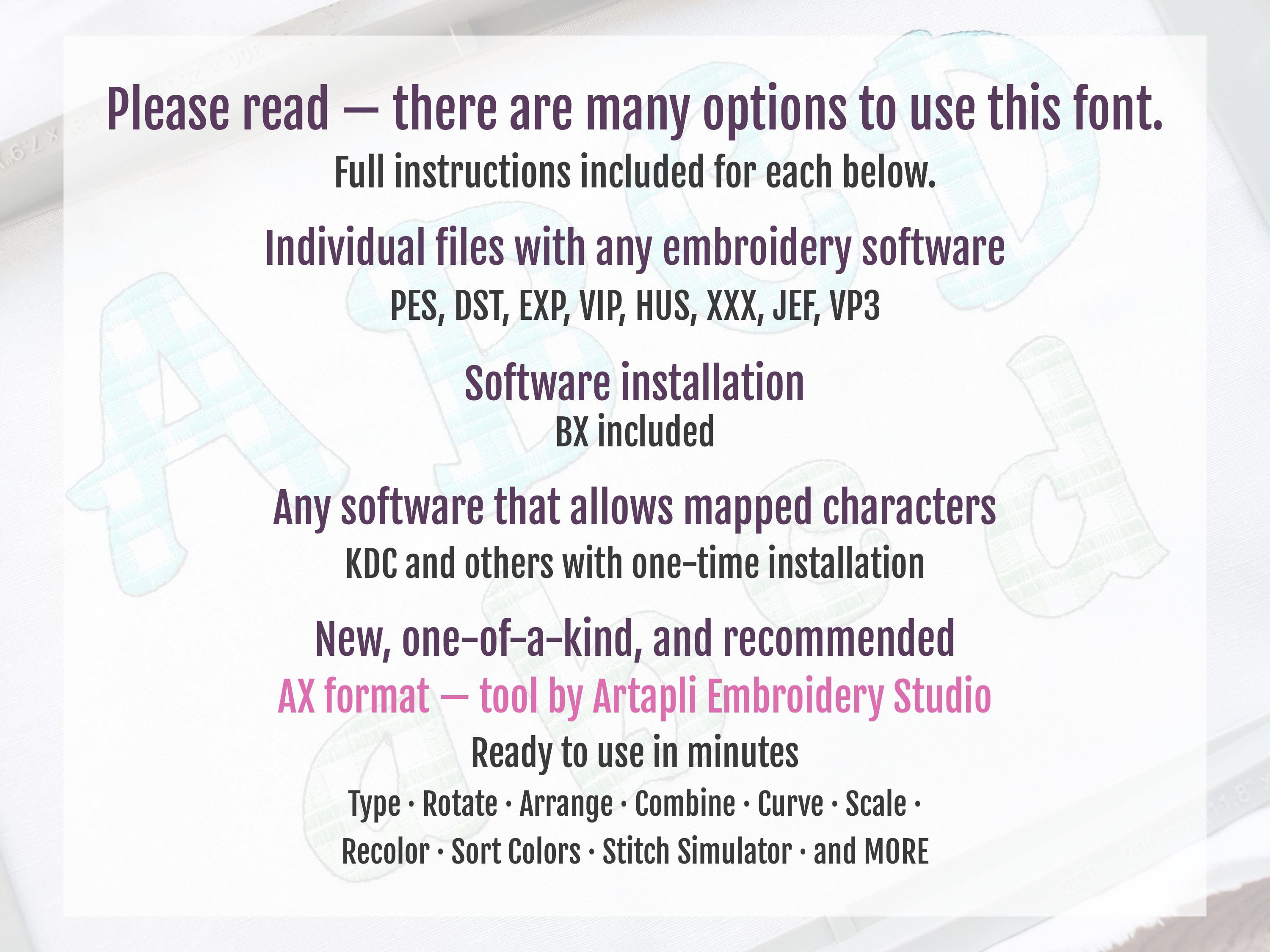
Tartan Plaid Gingham playing fun Font light sketch outline machine embroidery font alphabet letters 1.5, 2, 2.5, 3, 3.5, 4, 4.5, 5 and 6in, BX files included
These are quick stitch designs, very light, the background fabric looks through. Stunning effect. Gingham lines are part of the embroidery.